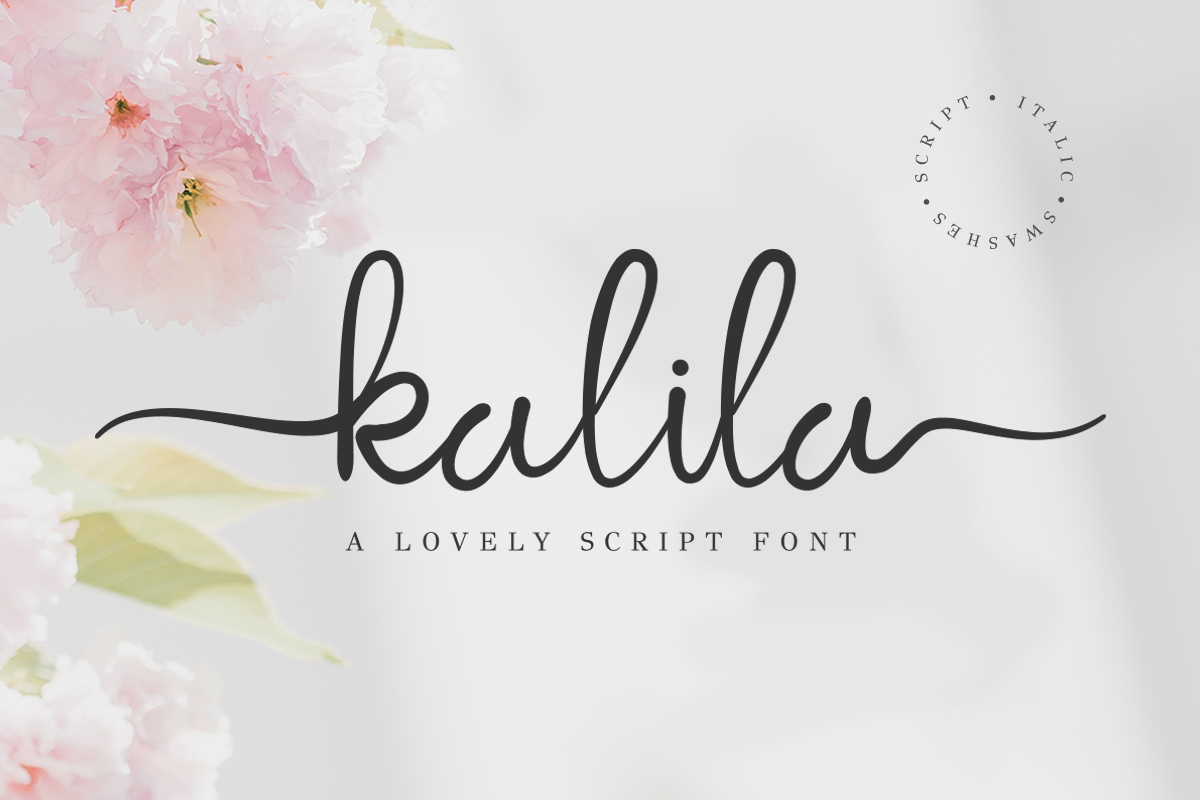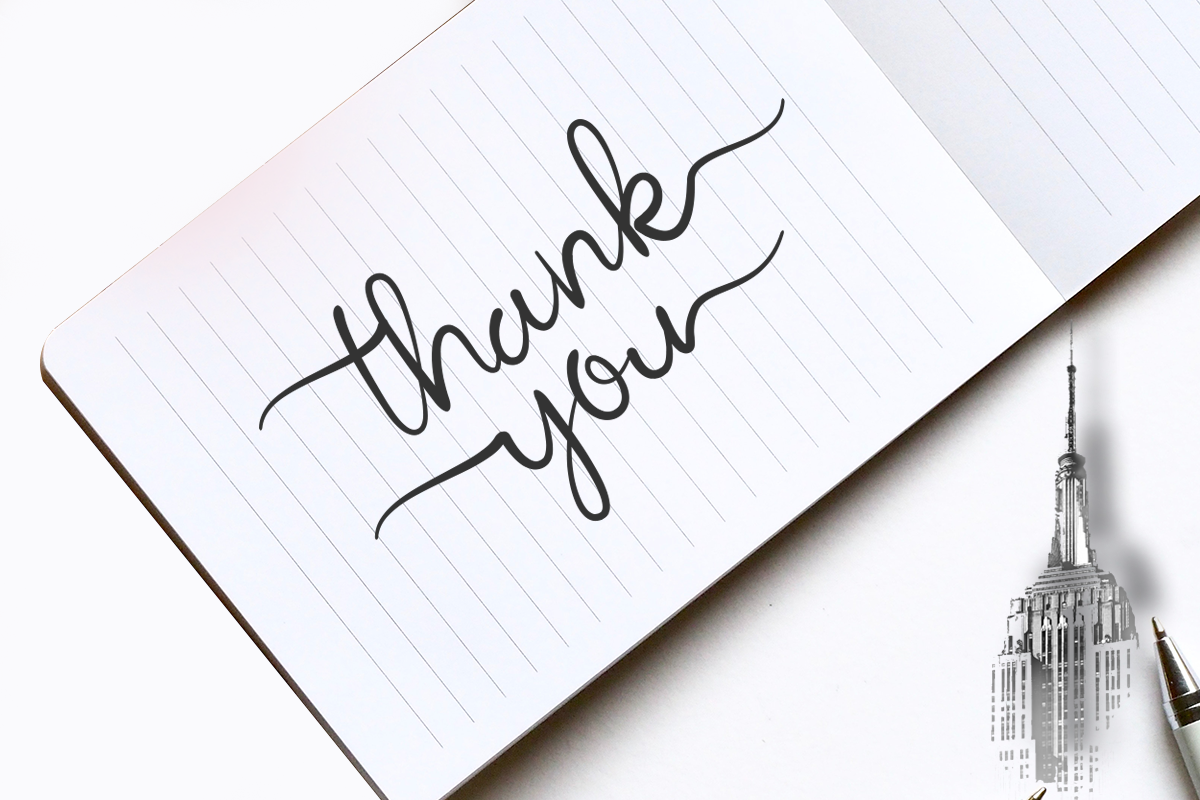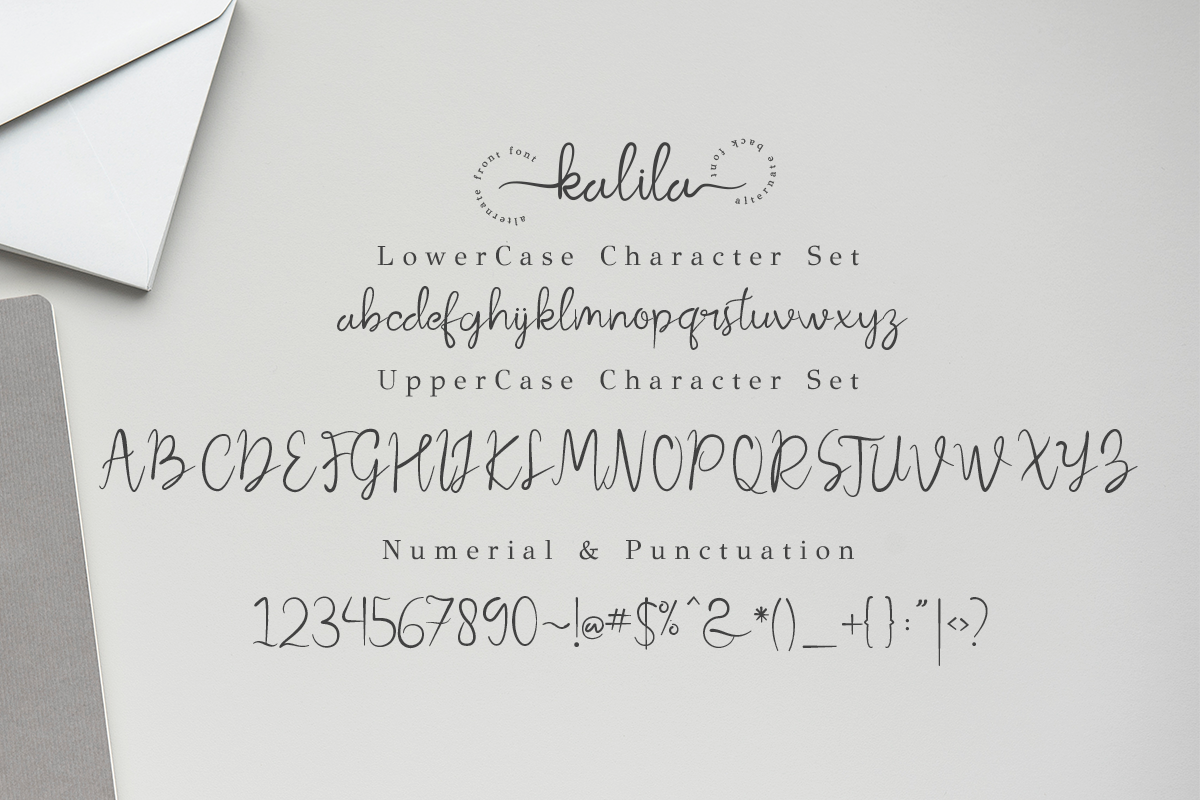
kalila script font
Kalila Script
Kalila Script created by vermilione is suitable use for market design developed at this time, this font has a model Trendy, natural and gentle, with this font you can take advantage of the opportunity in every moment of one wonderful way to highlight the celebration of the feast of your best, because this font will be advocates for purposes such as wedding invitations, party, graduation, birthday, gathering, etc.
- Kalila Script feature beginning and ending swashes alternate, and Italic Version on full character